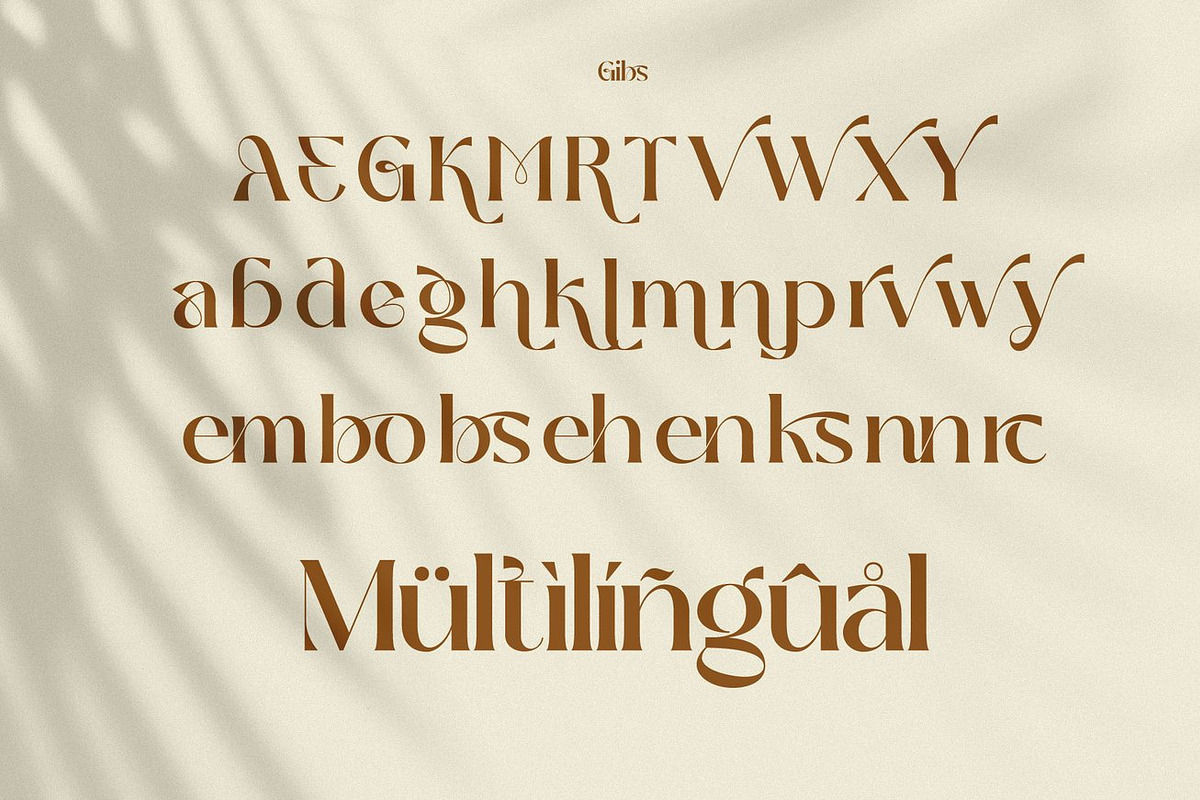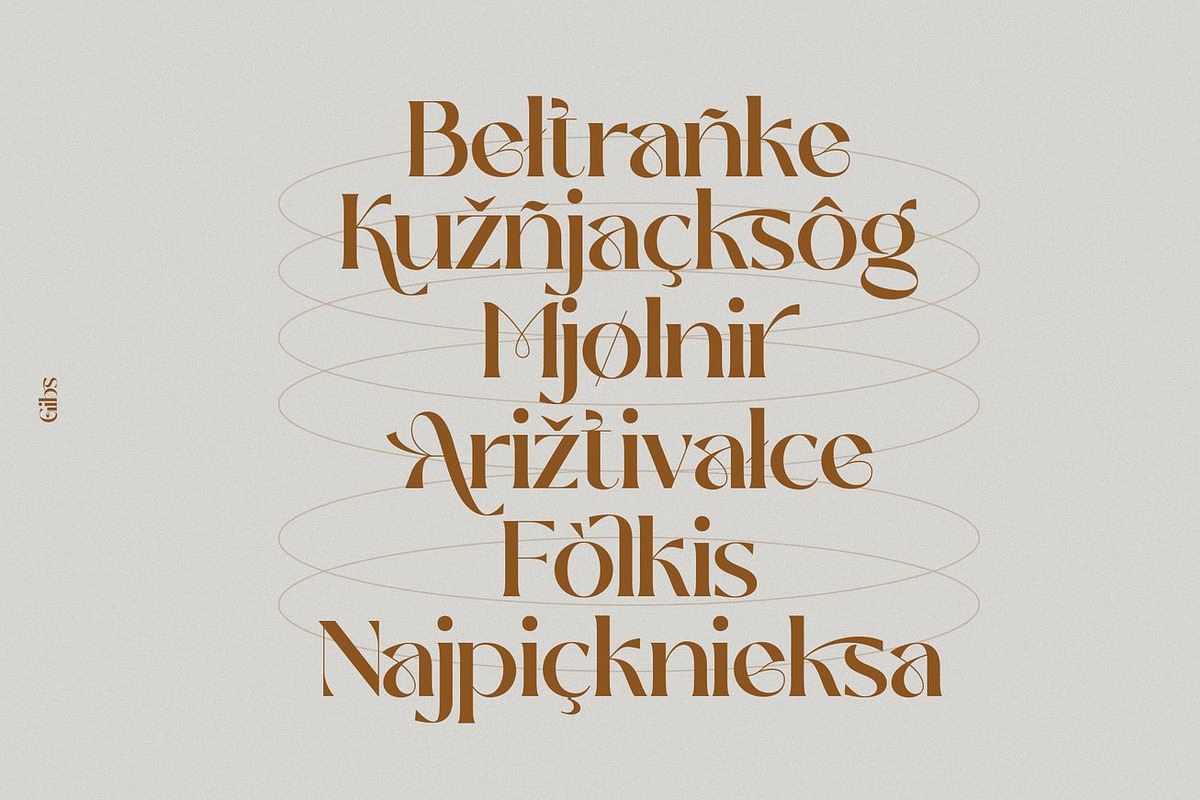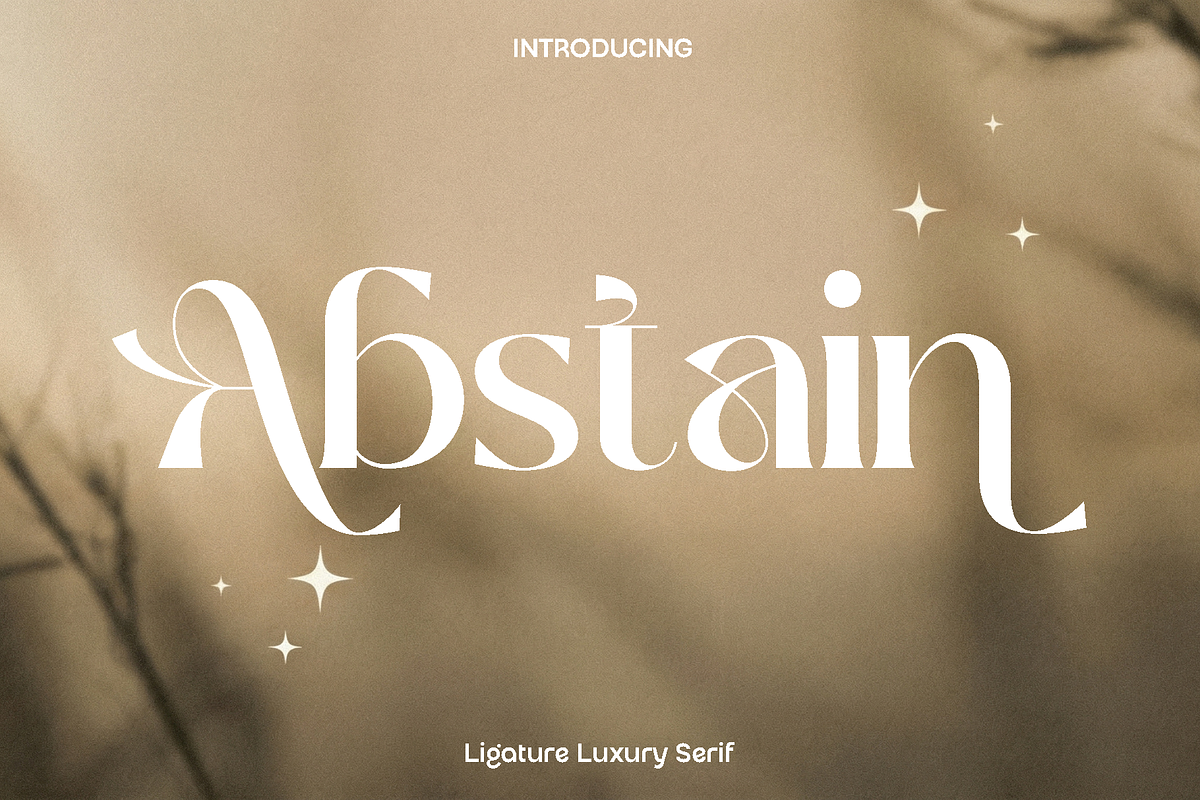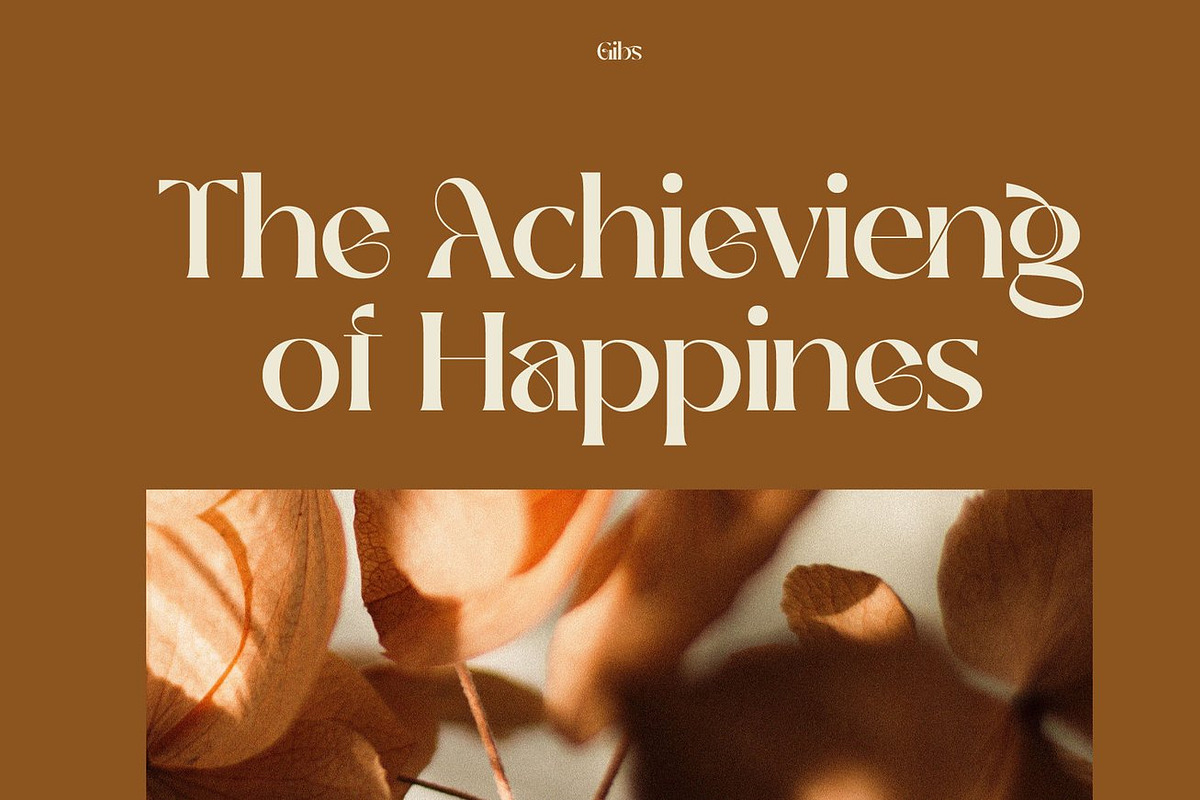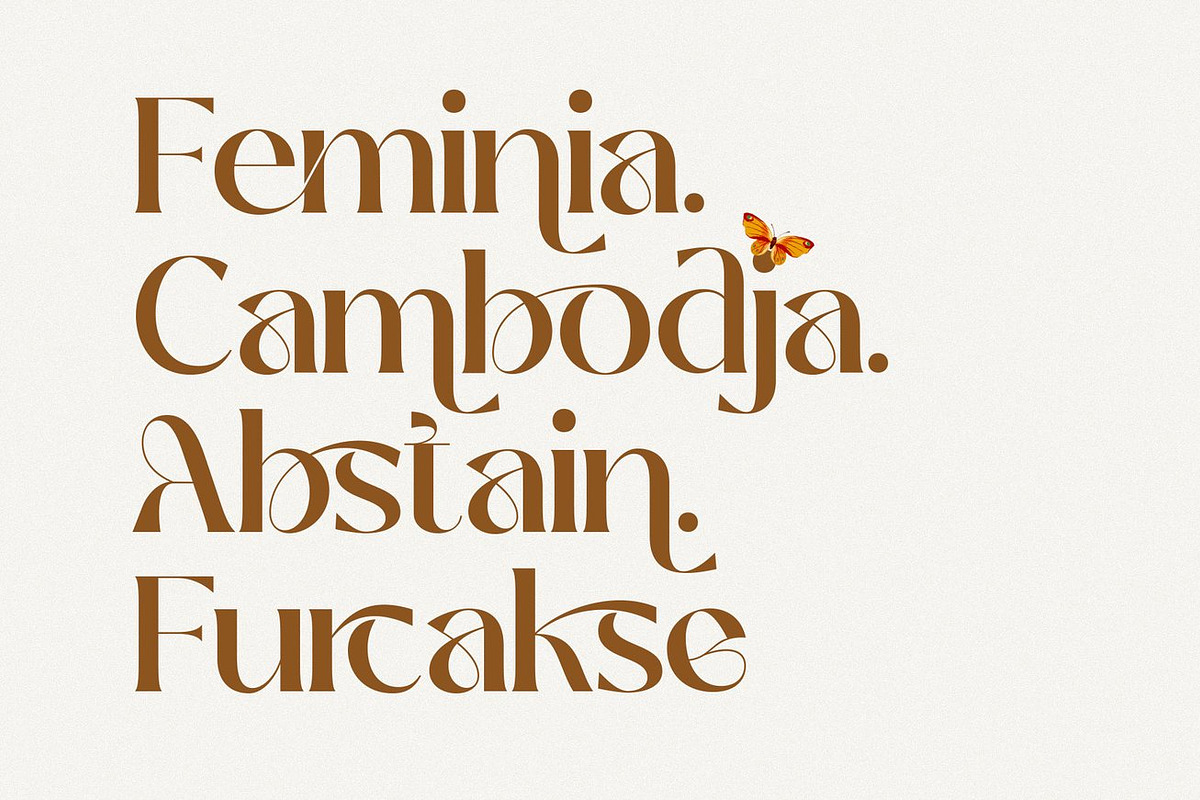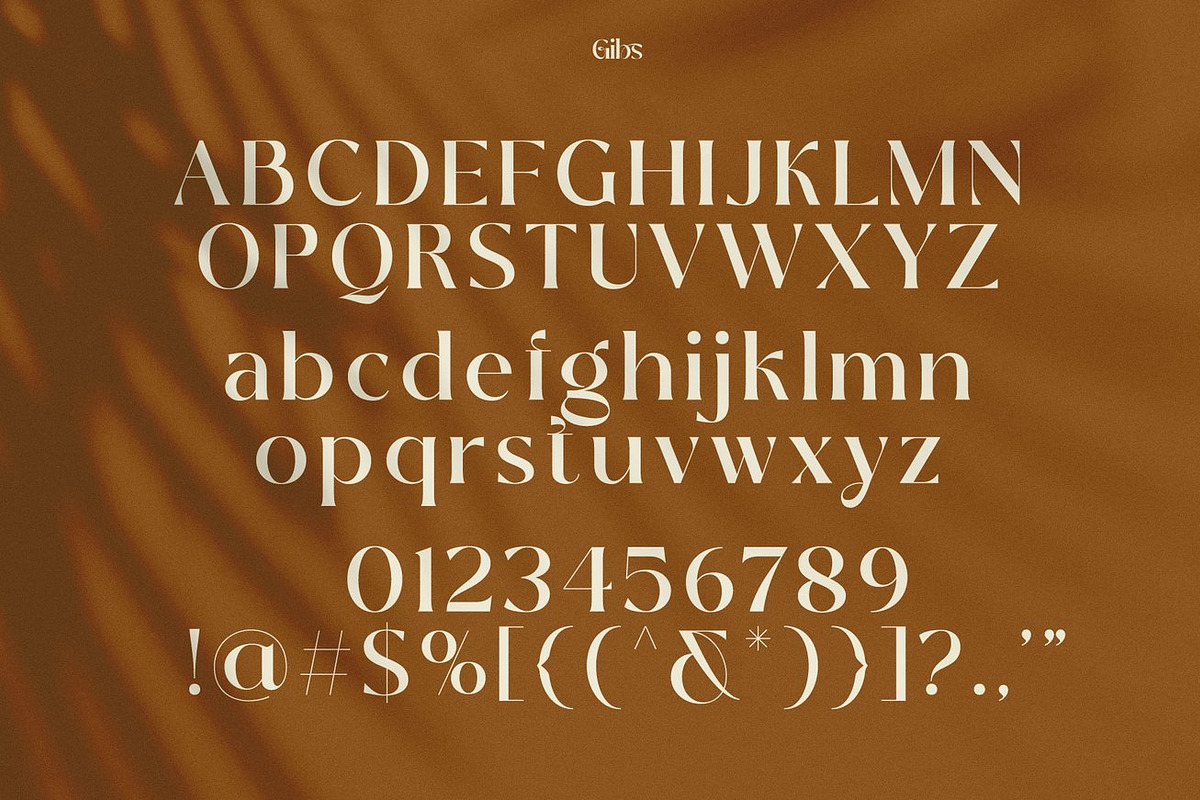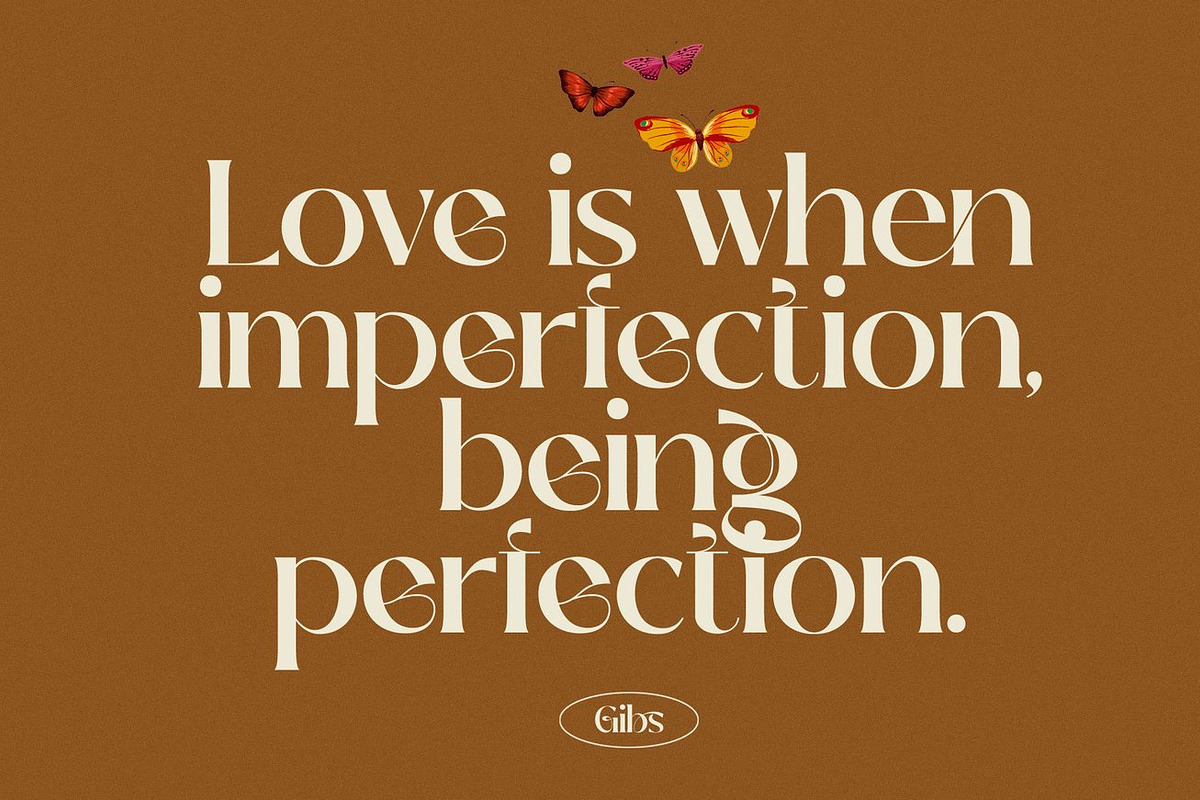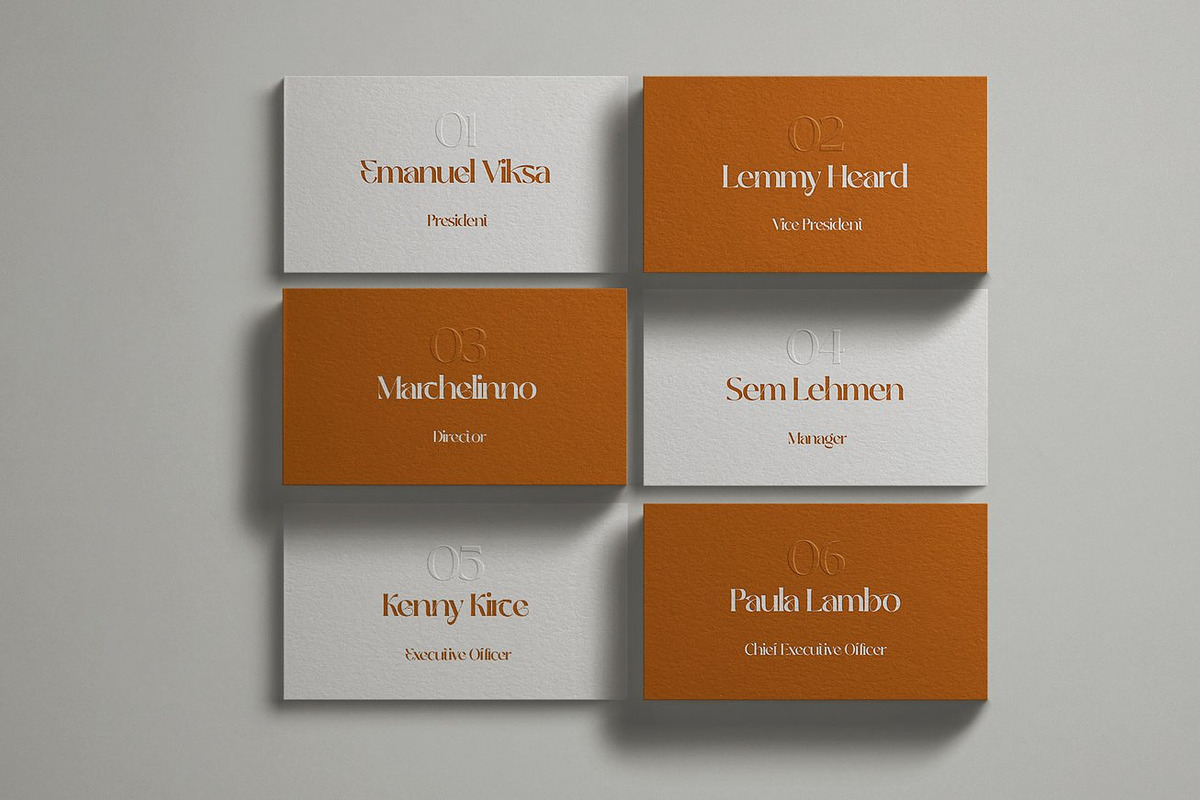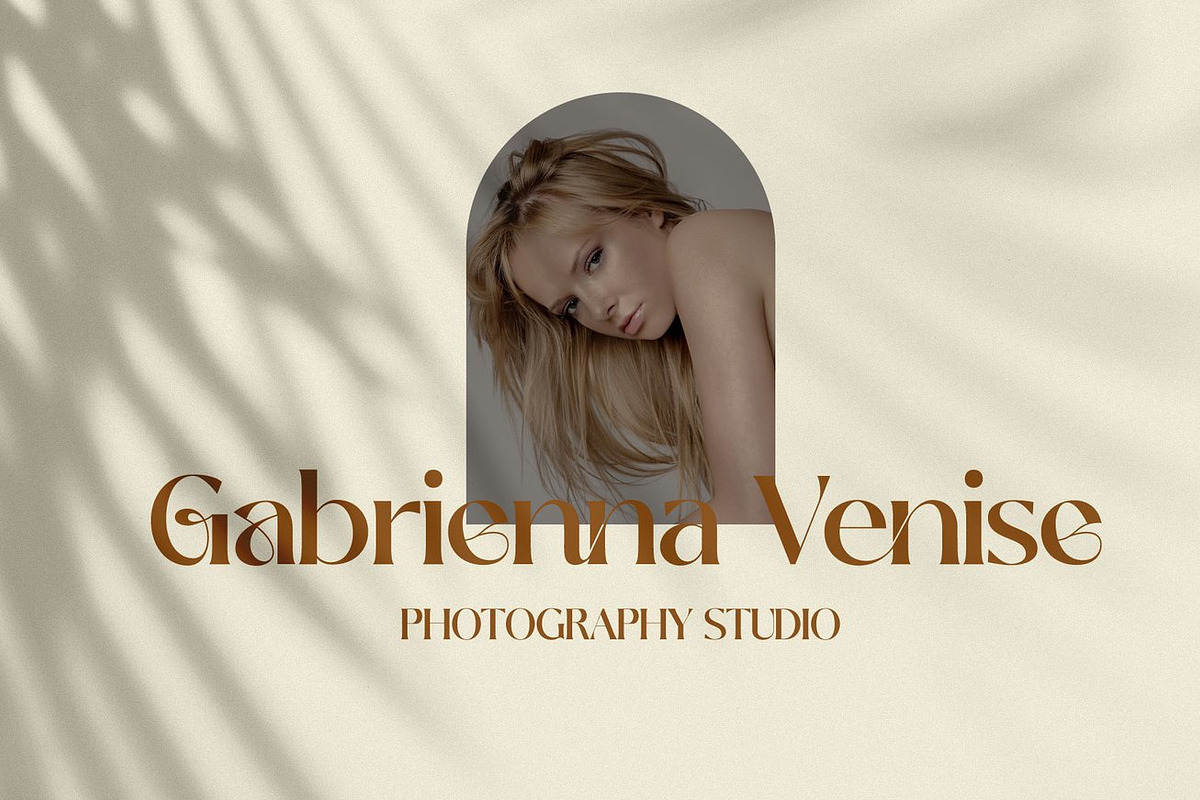
Abstain Ligature Luxury Serif
Abstain is a refined modern typeface designed to bring clarity, balance, and understated elegance to a wide range of creative projects. Crafted with thoughtful proportions and clean letterforms, Abstain reflects a contemporary design approach while maintaining a timeless appeal. Its smooth structure and functional style make every word feel polished, professional, and visually pleasing.
The personality of Abstain is versatile and expressive. It feels confident yet graceful, allowing it to adapt beautifully to both bold statements and subtle details. This makes it an excellent choice for books, magazines, logos, branding, photography overlays, inspirational quotes, blog headers, posters, and advertising materials. Whether used in print or digital design, Abstain enhances readability while adding a sophisticated visual tone.
Abstain shines in layouts that require harmony and style without overpowering other design elements. Its balanced forms support creative flexibility, helping designers build elegant compositions with ease. From editorial spreads to modern brand identities, this typeface offers a dependable foundation that elevates the overall aesthetic of your work.
Abstain Font Features:
• Uppercase and lowercase characters
• Numerals and functional symbols
• Multilingual support
• OpenType features